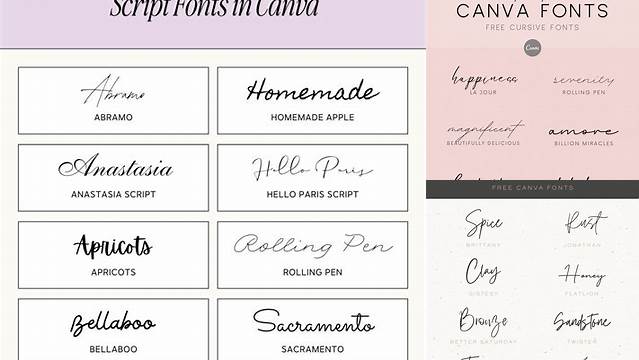
Elegant Cursive Handwriting Fonts For Canva
Choosing the right font can make all the difference in your design projects, especially when aiming for an elegant and personal touch. Cursive handwriting fonts add a unique flair that can elevate your designs, whether you're creating invitations, branding materials, or social media graphics. With Canva, accessing and using these fonts is super easy, making it a go-to platform for designers of all levels. Let's dive into the world of cursive handwriting fonts available on Canva and how to make the most of them.
The Allure of Cursive Handwriting Fonts
Cursive handwriting fonts bring a sense of authenticity and warmth to any project. Unlike standard digital fonts, cursive fonts mimic the flow and rhythm of human handwriting, adding a personal touch that resonates with viewers. They can evoke feelings of nostalgia, sophistication, or playfulness, depending on the specific style. When used effectively, cursive fonts can make your designs more engaging and memorable. Think about wedding invitations, where a beautiful cursive font can set the tone for a romantic and elegant event. Or consider a logo for a boutique brand, where a handwritten style can convey a sense of craftsmanship and care.
Importance of Font Choice in Design
Font choice is paramount in design because it directly impacts how your message is perceived. A well-chosen font can enhance readability, reinforce your brand identity, and create the desired emotional response. Handwriting fonts, in particular, can add personality and charm, making your designs stand out from the crowd. However, it's crucial to use them judiciously. Overusing cursive fonts or pairing them with incompatible styles can lead to a cluttered and confusing design. Balance is key, and understanding the nuances of different cursive fonts will help you make informed decisions.
Why Use Canva for Font Selection?
Canva is a fantastic platform for exploring and implementing various fonts in your design projects. Its user-friendly interface and vast library of fonts make it accessible to both beginners and experienced designers. With Canva, you can easily preview how different cursive fonts will look in your design, experiment with various combinations, and customize the font size, color, and spacing to achieve the perfect look. Plus, Canva regularly updates its font library, ensuring you always have access to the latest and greatest styles. This makes Canva an invaluable tool for anyone looking to incorporate beautiful handwriting fonts into their work.
Popular Cursive Fonts in Canva
Canva boasts an extensive collection of cursive fonts, each with its unique characteristics and applications. Some fonts are elegant and formal, ideal for wedding invitations or high-end branding, while others are playful and casual, perfect for social media graphics or children's books. Here are some popular cursive fonts available in Canva that you should definitely check out.
1. Brush Script MT
Brush Script MT is a classic cursive font that exudes elegance and sophistication. Its flowing strokes and graceful curves make it a popular choice for invitations, certificates, and other formal documents. The font has a calligraphic feel, which adds to its appeal, making it a great option if you want to add a touch of class to your designs. Brush Script MT is highly readable, which is essential for maintaining clarity in your message. It is also widely available, ensuring that your designs look consistent across different platforms.
2. Pacifico
Pacifico is a fun and friendly cursive font that's perfect for adding a touch of whimsy to your designs. Its rounded letters and playful curves make it ideal for social media graphics, blog headers, and other informal projects. Pacifico is inspired by the surf culture of Southern California, which gives it a laid-back and carefree vibe. This font is best used sparingly to maintain readability, and it pairs well with simpler sans-serif fonts. If you want to inject some personality and charm into your designs, Pacifico is an excellent choice. This makes it good for social media.
3. Dancing Script
Dancing Script is a modern cursive font that combines elegance with a touch of playfulness. Its dynamic strokes and varying letter heights create a lively and engaging effect. This font is well-suited for invitations, greeting cards, and other projects where you want to convey a sense of joy and celebration. Dancing Script is highly versatile and can be used in a variety of design contexts. However, it's essential to ensure that the font size is large enough to maintain readability, especially in longer passages of text. With its unique charm and personality, Dancing Script can bring your designs to life.
4. Great Vibes
Great Vibes is an elegant cursive font that's perfect for adding a touch of sophistication to your designs. Its flowing lines and delicate curves make it ideal for wedding invitations, logos, and other high-end branding materials. Great Vibes has a classic and timeless feel, making it a versatile choice for a wide range of projects. To ensure clarity, using Great Vibes sparingly and pairing it with a clean sans-serif font is important. This font can elevate your designs with its refined and graceful aesthetic.
5. Alex Brush
Alex Brush is a bold and expressive cursive font that commands attention. Its thick strokes and dynamic curves make it perfect for headlines, titles, and other display purposes. Alex Brush has a vintage feel, which adds to its charm and appeal. Using this font sparingly, especially in smaller sizes, is important, as its bold nature can sometimes impact readability. When paired with simpler fonts, Alex Brush can create a striking contrast that enhances the overall design. It is a great option for projects that require a strong and memorable visual impact.
Conclusion: Mastering Cursive Fonts in Your Designs
Mastering cursive fonts in your designs is an ongoing process that requires practice, experimentation, and a keen eye for detail. By understanding the nuances of different cursive fonts, learning how to pair them with other fonts, and avoiding common mistakes, you can create designs that are both visually appealing and effective in communicating your message. Whether you're using Canva, Google Fonts, Adobe Fonts, or other resources, the key is to be creative, have fun, and never stop learning. With dedication and practice, you can master the art of using cursive fonts and create designs that truly stand out.